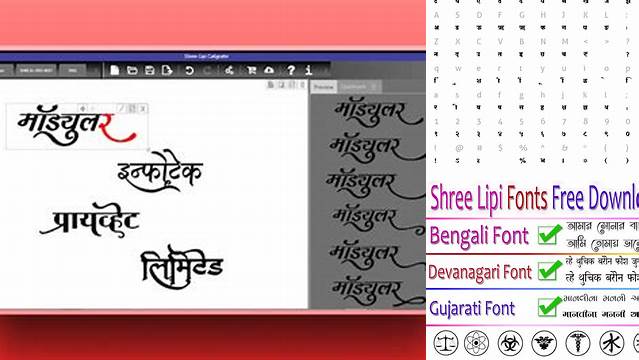
Shree Lipi Bengali Fonts: Your Ultimate Guide
Introduction to Shree Lipi Bengali Fonts
Hey everyone! Today, we're diving deep into the world of Shree Lipi Bengali fonts, a cornerstone for anyone working with the Bengali language on computers. If you're into designing, writing, or just generally interested in Bengali typography, then you're in the right place. Shree Lipi is a well-known name in the industry, particularly for its extensive range of fonts designed to beautifully render the complex characters and ligatures of the Bengali script. These fonts are not just about aesthetics; they're crucial for accurate and clear communication. In this article, we'll explore everything you need to know about Shree Lipi Bengali fonts, from their features and benefits to how to use them effectively in your projects. We will also get into how to navigate the nuances of using these fonts, ensuring your text looks great and is easily readable. Whether you're a professional designer, a student, or a casual user, understanding Shree Lipi Bengali fonts can significantly enhance your experience with the Bengali language.
Shree Lipi fonts are specifically designed to support the Bengali script, addressing the challenges presented by its unique character set. The Bengali script includes numerous conjuncts, vowel signs, and other special characters that need to be rendered correctly to avoid text distortion. These fonts are not just about displaying the characters; they focus on creating a harmonious and visually pleasing design. The developers of Shree Lipi have paid close attention to the details of character design, ensuring each letter and symbol is crafted to meet the standards of readability and aesthetics. Furthermore, these fonts often include a wide variety of styles and weights, providing flexibility for various design purposes. This allows designers to choose fonts that best match their specific needs. They range from elegant and formal fonts for professional documents to more casual and friendly fonts for everyday use. Understanding these options allows you to add depth and personality to your projects.
One of the core aspects of Shree Lipi Bengali fonts is the meticulous attention to detail in character design. This ensures that the complex combinations of characters, like ligatures, are rendered accurately and beautifully. Ligatures are essential in Bengali script because they fuse multiple characters to create a single glyph, and these fonts manage this complexity effectively. It is also important to keep in mind that the visual appeal of Bengali text is significantly influenced by the typeface used. Shree Lipi offers a variety of fonts that cater to different design styles, from traditional to modern. Each font is developed to meet specific design and readability criteria, ensuring that the text not only looks great but also makes it simple to read. This variety gives designers and users the tools to fully explore the visual capabilities of Bengali text.
Key Features of Shree Lipi Bengali Fonts
Let's get into the nitty-gritty of what makes Shree Lipi Bengali fonts so special. First off, compatibility is key. These fonts are designed to work seamlessly with a range of applications, including popular word processors, design software, and operating systems. Compatibility is a must for any font, and Shree Lipi ensures that their fonts integrate well across platforms, letting you use them without a hitch. Another standout feature is the completeness of their character sets. Unlike some fonts that might lack certain glyphs or special characters, Shree Lipi fonts are meticulously crafted to include all necessary elements. These elements ensure that every aspect of the Bengali script can be rendered correctly and beautifully. The wide selection of styles and weights is another reason why people love them. You can easily find a font that fits your needs. This flexibility allows for both versatility and creativity when designing any kind of document or project. The inclusion of OpenType features makes the fonts super advanced, supporting ligatures, contextual alternates, and other typographic refinements. This level of detail means the fonts will accurately and elegantly display the complex characteristics of the Bengali script, improving the overall look of your text.
Shree Lipi Bengali fonts ensure correct rendering of the Bengali script. It's all about handling the special characters, conjuncts, and vowel signs right. They're built to support the complexities of the Bengali language, offering smooth rendering and making sure every character looks just how it should. These fonts also focus on aesthetic appeal, making sure your Bengali text is not only readable but also looks great. They carefully balance form and function. These fonts also come in many styles, giving you loads of options. You can find the perfect font for any project, from formal documents to casual designs. This is super important because it means your text can perfectly match the style and tone you're going for. Because of the use of OpenType technology, Shree Lipi fonts also have advanced typographic features. These features, such as ligatures and contextual alternates, add a touch of sophistication to your designs. This is what makes the fonts not only functional but also visually appealing. Using these features, your texts will have that professional and polished look.
So, if you're getting started with Bengali typography or just looking to improve your existing projects, then Shree Lipi Bengali fonts are worth checking out. By keeping in mind their main features, understanding how to use them correctly, and knowing what to do if things go wrong, you'll be ready to create beautiful Bengali text. Keep exploring these fonts and see how they can help you improve your projects.